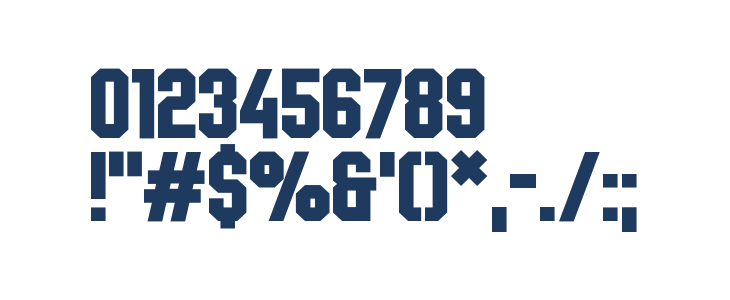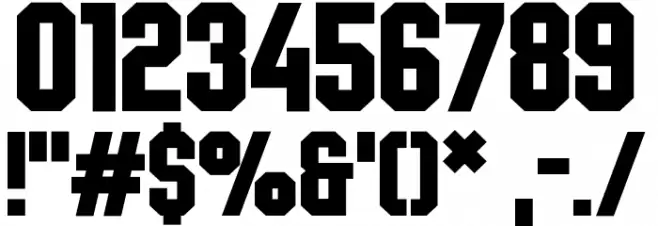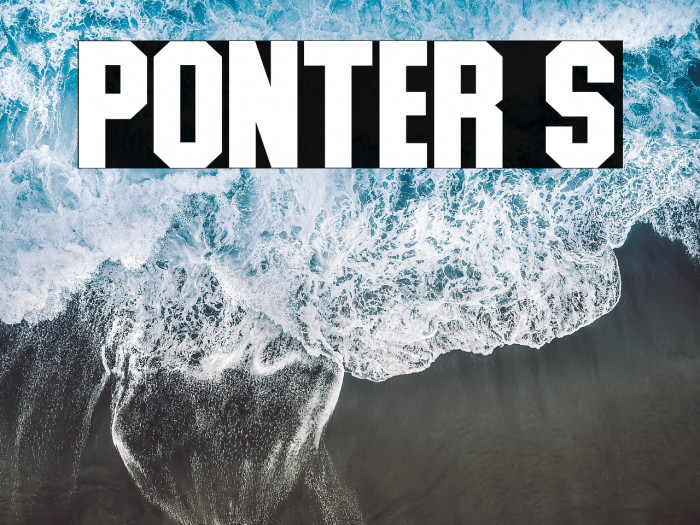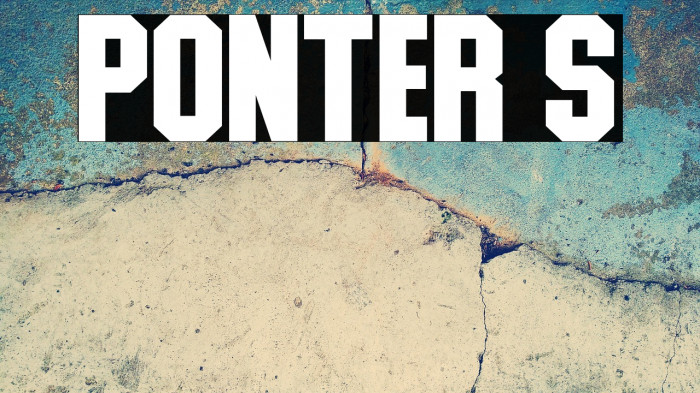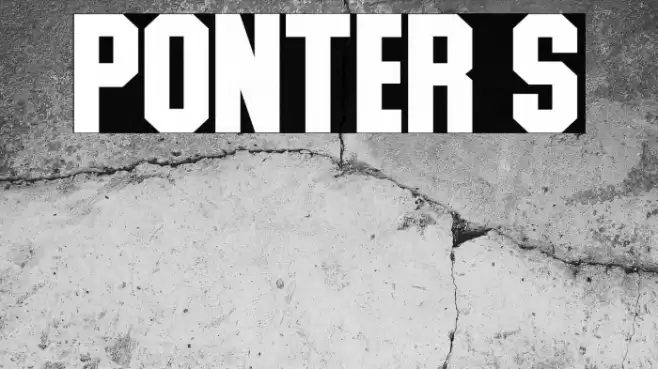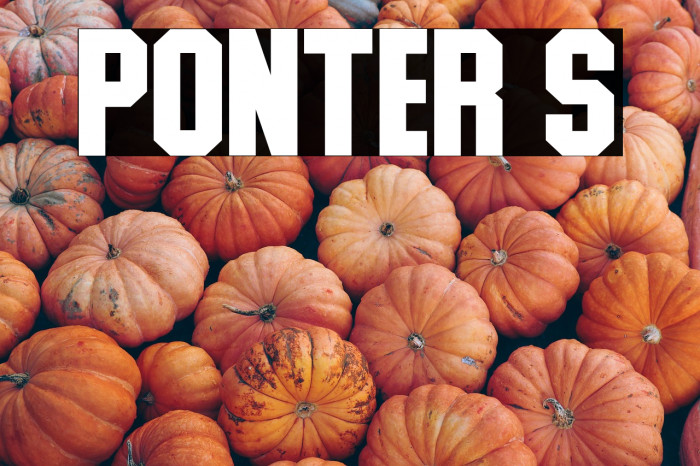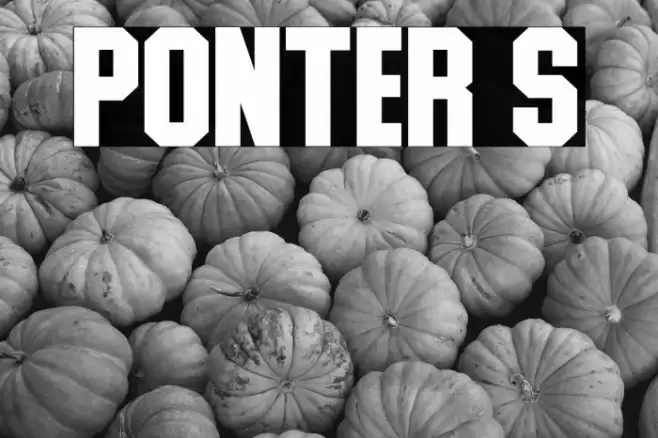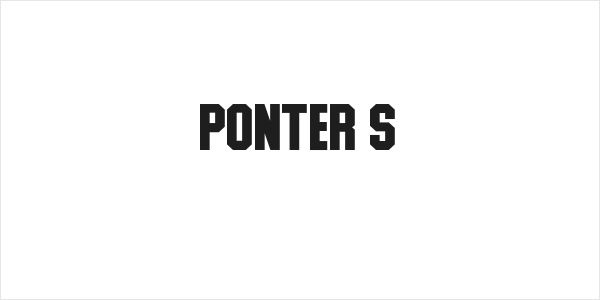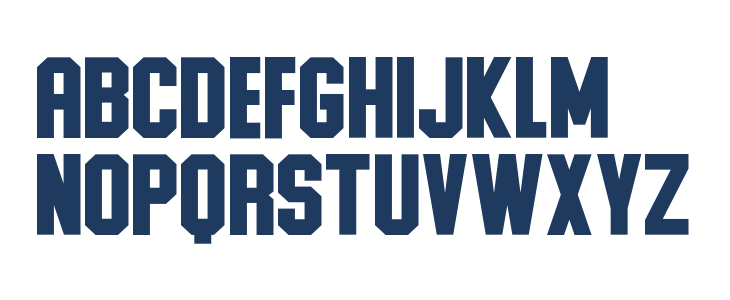
Ponter S Font
Ponter S Description
This font features bold, geometric letterforms with a strong, impactful presence. The characters are constructed with sharp angles and straight lines, giving them a modern and assertive look. The uppercase letters are particularly striking, with a uniform height and width that create a cohesive and balanced appearance. The numerals and special characters maintain the same boldness and geometric style, ensuring consistency across all elements. This font is designed to grab attention and make a statement, making it ideal for headlines and display purposes.